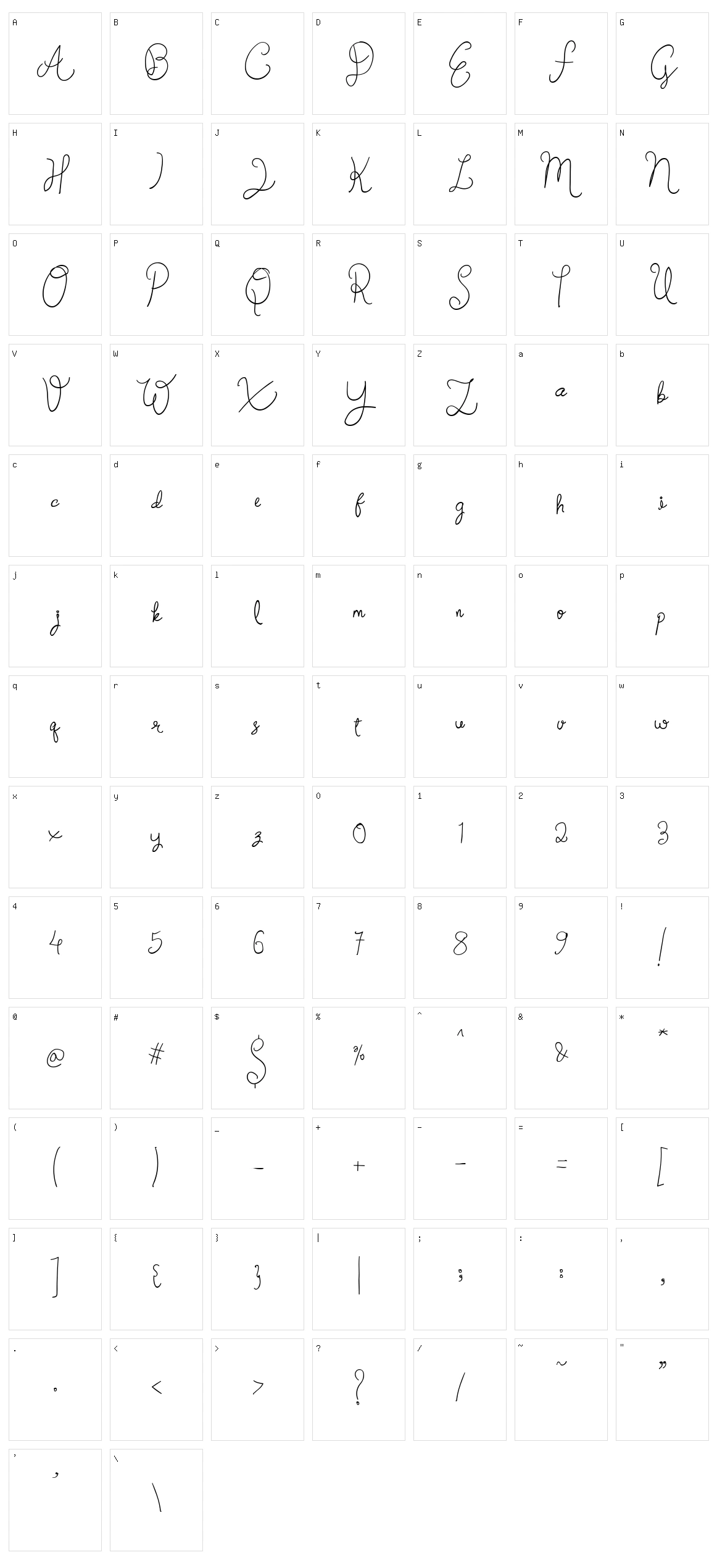
Signature Street is a new Semi Scrip Handwritten Lazy Street Signature Font,
It will Perfectly Fits for the Advertisement, Social Media Posts, Personal Notes and Handwriting projects.